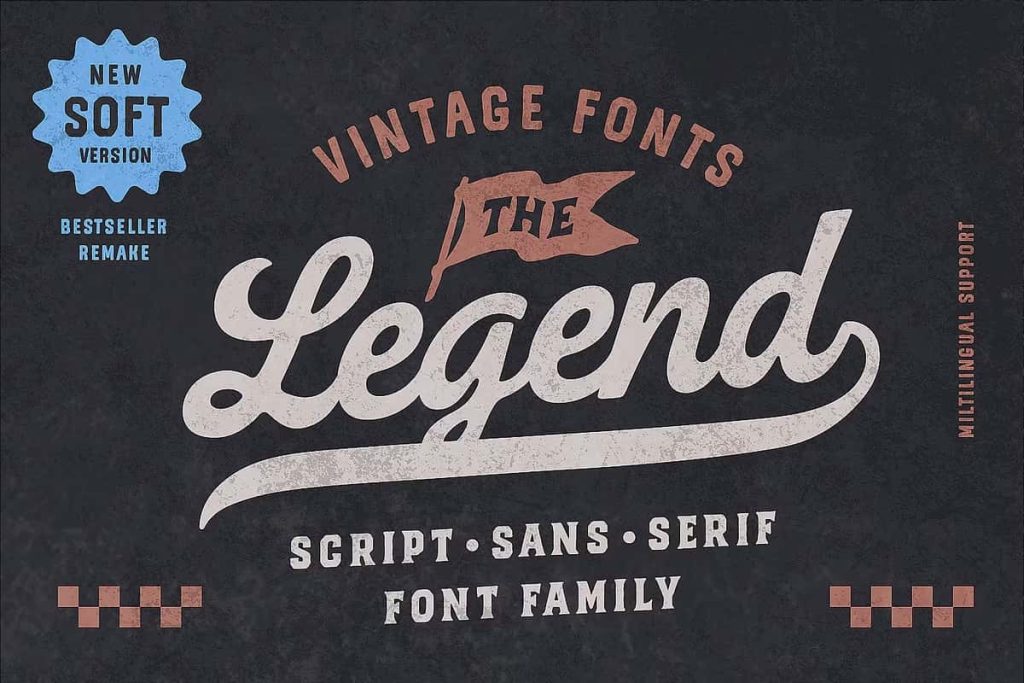
Legend Script, Sans & Serif (Soft)leastedJuly 15, 2025Fonts The Legend Font was handcrafted under the inspiration of traditional American typography and lifestyle. Download